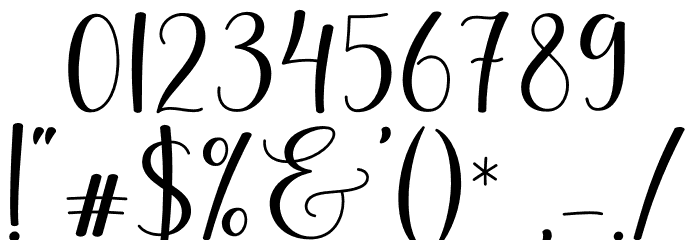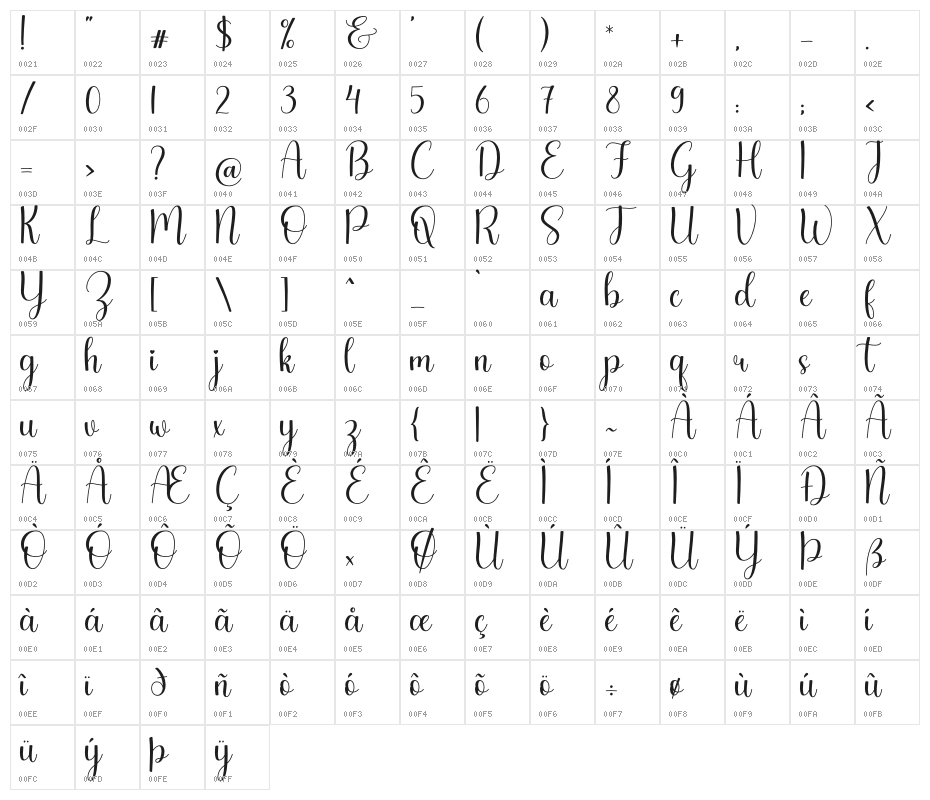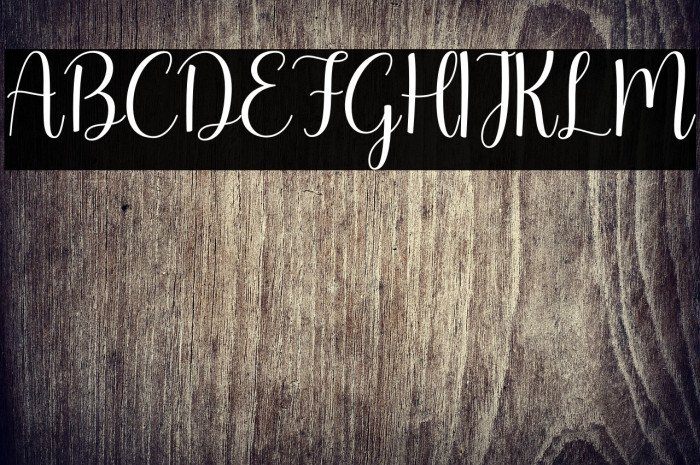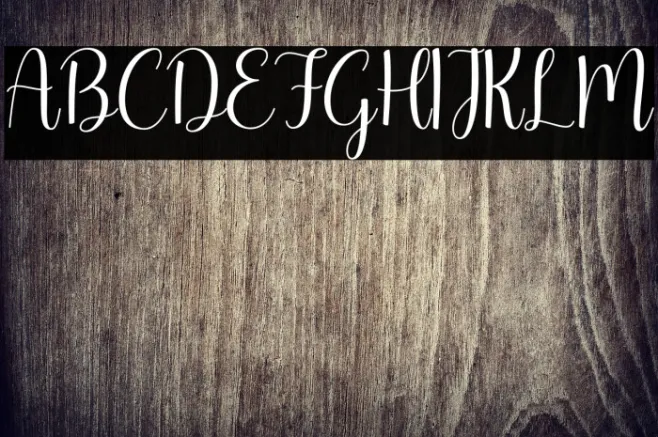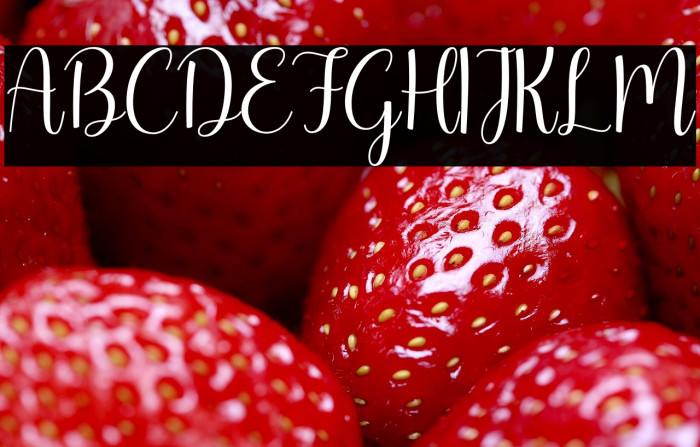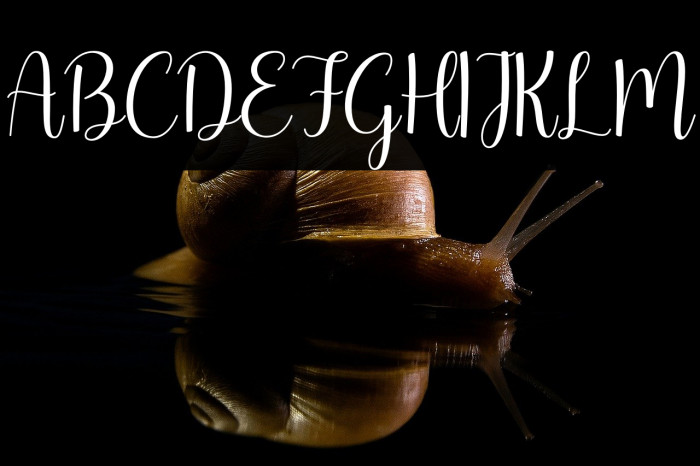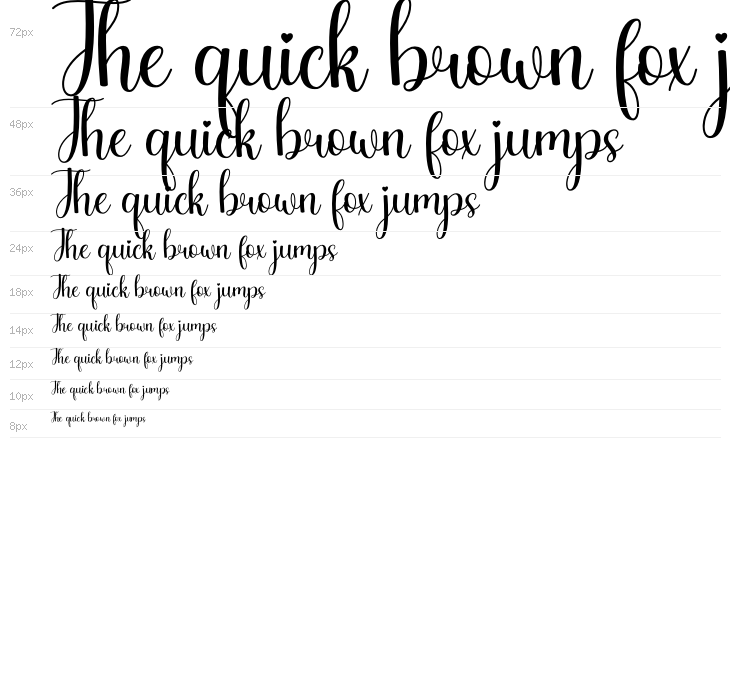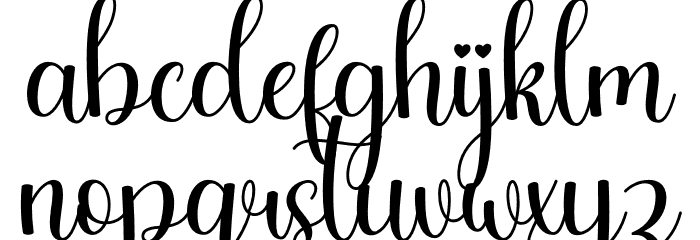
Barkelia Font
Barkelia Description
This font features an elegant and flowing script style, characterized by its smooth, cursive lines and graceful curves. The uppercase letters are tall and slender, with a slight slant that adds a sense of movement and fluidity. The lowercase letters maintain a consistent flow, with some characters featuring unique loops and flourishes that enhance the overall aesthetic. The numerals are clear and easy to read, while the special characters blend seamlessly with the rest of the font, maintaining the same elegant style. This font is perfect for projects that require a touch of sophistication and charm.
Overall StyleElegant, Decorative
Use CaseLogos, Invitations, Decorative text
Proposed ProjectsIdeal for wedding invitations, greeting cards, branding, and elegant logo designs.